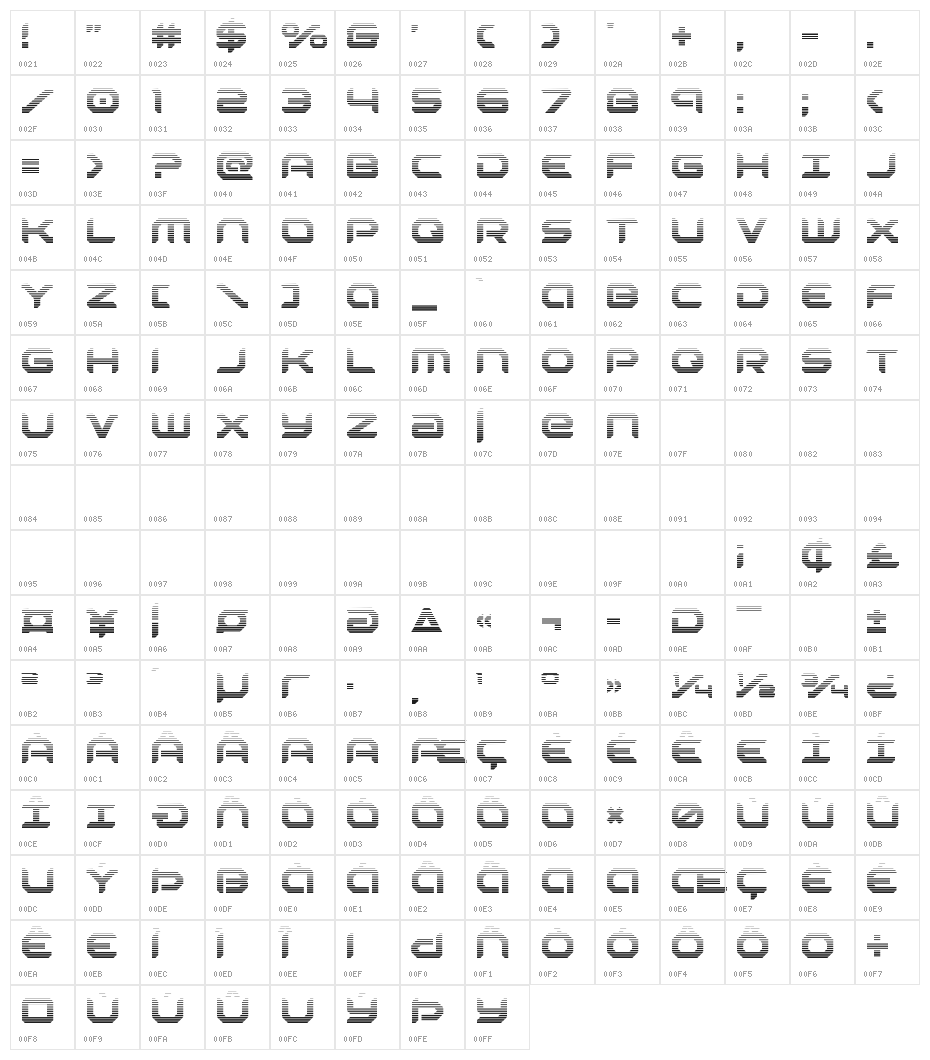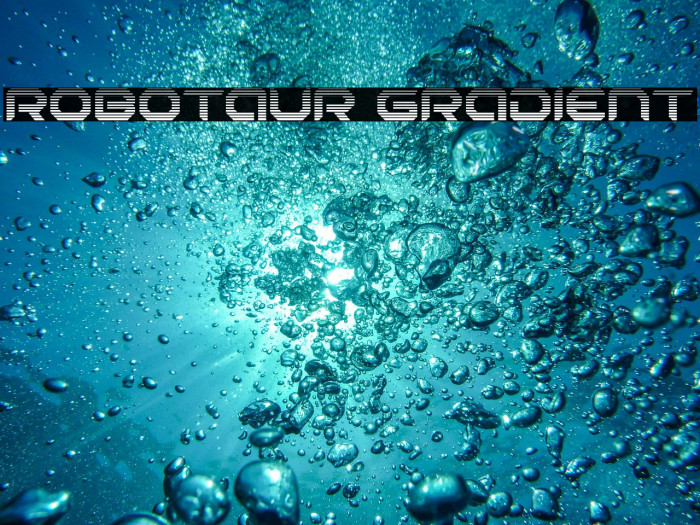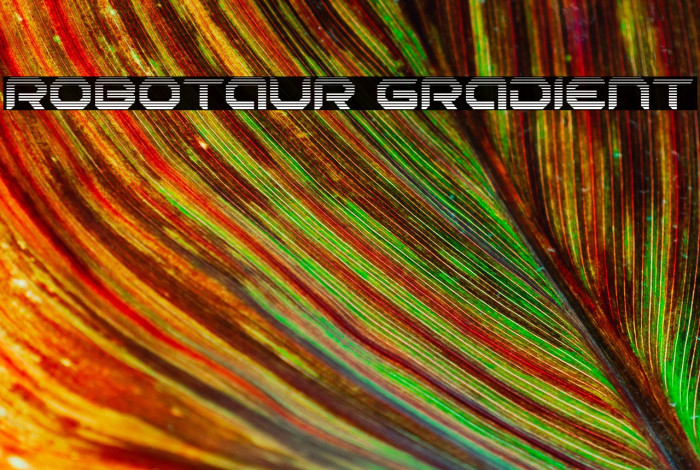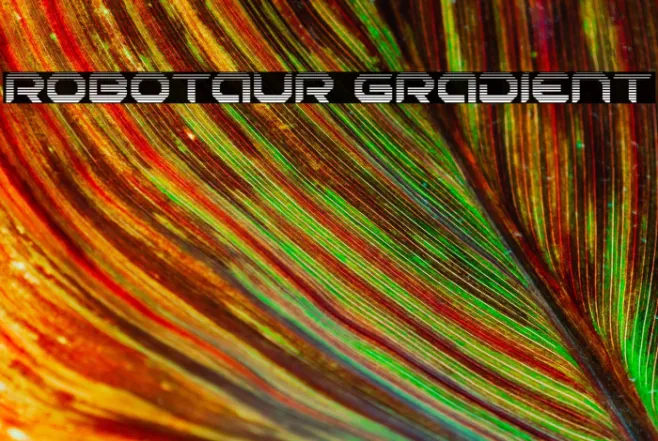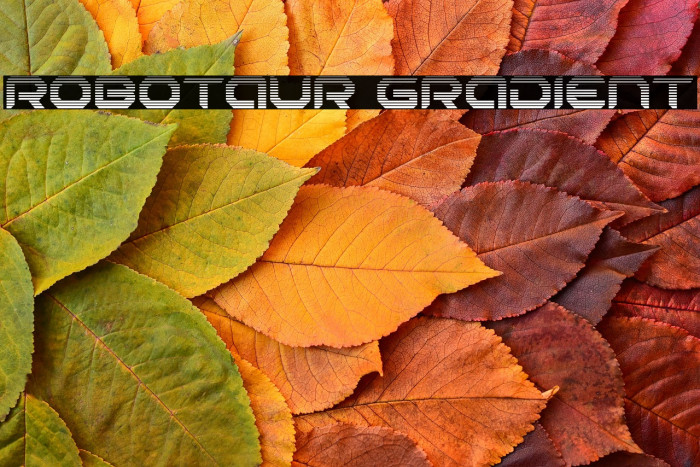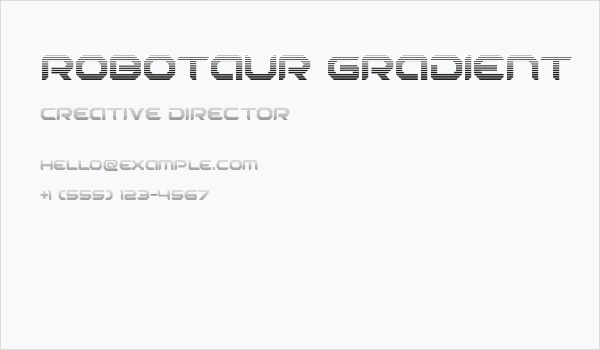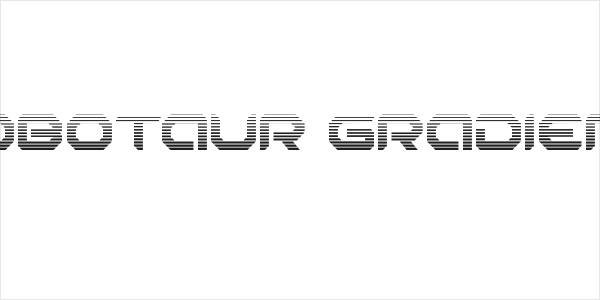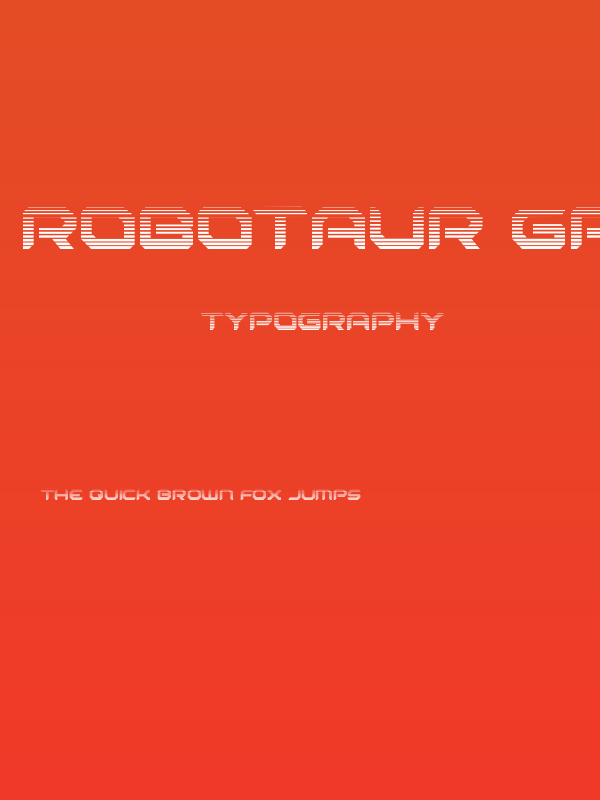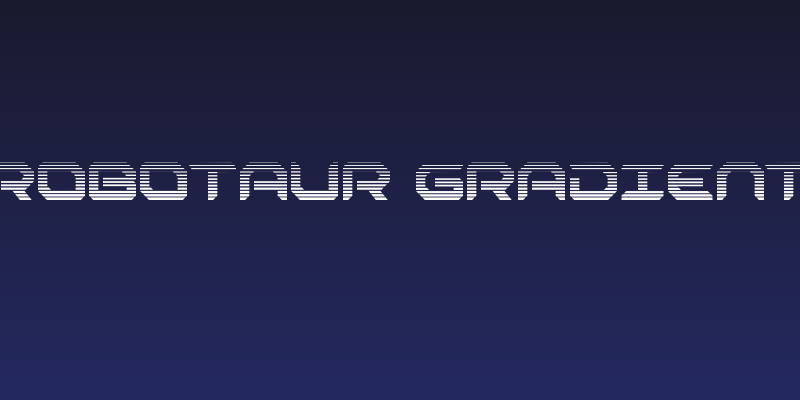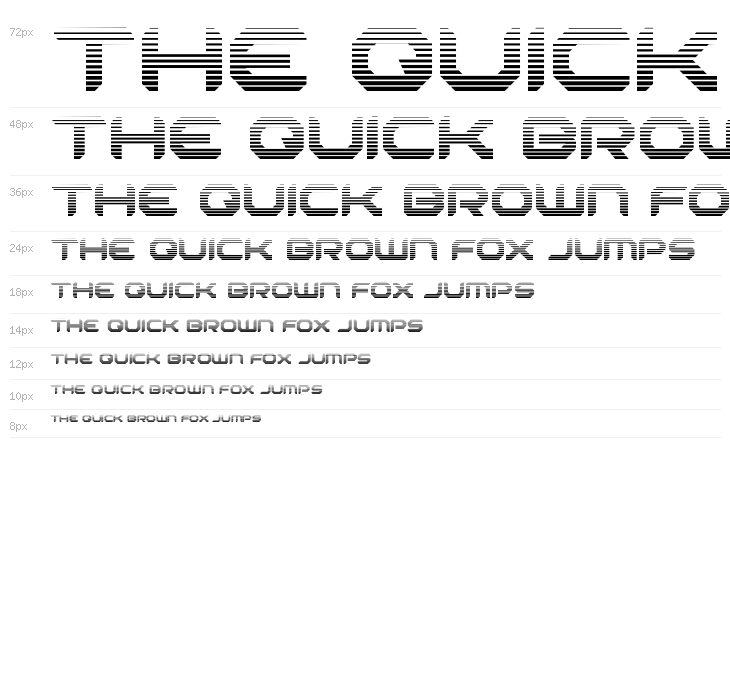
Robotaur Gradient Font
Robotaur Gradient Description
This font features a futuristic and digital aesthetic, characterized by its unique gradient-like horizontal lines that create a sense of movement and depth. The uppercase and lowercase letters, as well as the numbers and special characters, are designed with a consistent pattern of parallel lines, giving them a sleek and modern appearance. The font's geometric structure is both bold and innovative, making it stand out in any design project. Its distinct style is reminiscent of digital displays and modern technology, making it ideal for projects that require a contemporary and cutting-edge look.
| Proposed Projects | Ideal for tech-related branding, digital interfaces, video game titles, and futuristic posters. |